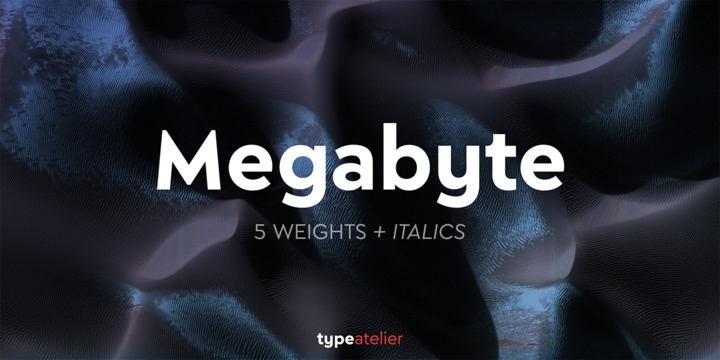
Megabyte Font
Megabyte Font is perfect for tech company branding, software interfaces, gaming logos, digital product packaging, cybersecurity materials, computer hardware labels, futuristic movie titles, electronic music covers, coding bootcamp materials, and modern tech presentations.
Megabyte Font is exciting because it perfectly captures the essence of digital innovation and technological advancement, creating a typeface that speaks directly to the tech-savvy generation. This font brings cutting-edge energy and digital sophistication to any project, making it ideal for brands and organizations operating in the technology sector who want to convey innovation, precision, and future-forward thinking. Its clean geometric structure and digital-inspired details create an immediate connection with modern technology.
Megabyte Font family includes light, regular, medium, bold, and black weights, along with condensed variations and special tech symbols, providing designers with comprehensive tools for creating cohesive digital brand experiences and technical documentation.
This futuristic typeface merges contemporary design trends with digital aesthetic principles, making Megabyte Font Free Download an outstanding choice for technology-focused creative projects. The font's precisely engineered letterforms feature subtle tech-inspired details that reference circuit boards, binary code, and digital interfaces while maintaining excellent readability across all platforms.
Whether you're designing software applications, tech startup branding, or digital marketing materials, Megabyte Font delivers the perfect balance of innovation and functionality. The font excels in both screen-based applications and high-tech print materials, from mobile app interfaces to conference banners and technical documentation.
Technology professionals appreciate Megabyte Font for its ability to instantly communicate digital expertise and technological credibility while remaining highly legible in complex interface environments. The font's modern character makes it particularly suitable for startups, software companies, and tech conferences.
Each character has been crafted with pixel-perfect precision, featuring optimized spacing and proportions that ensure consistent performance across different screen densities and digital platforms.